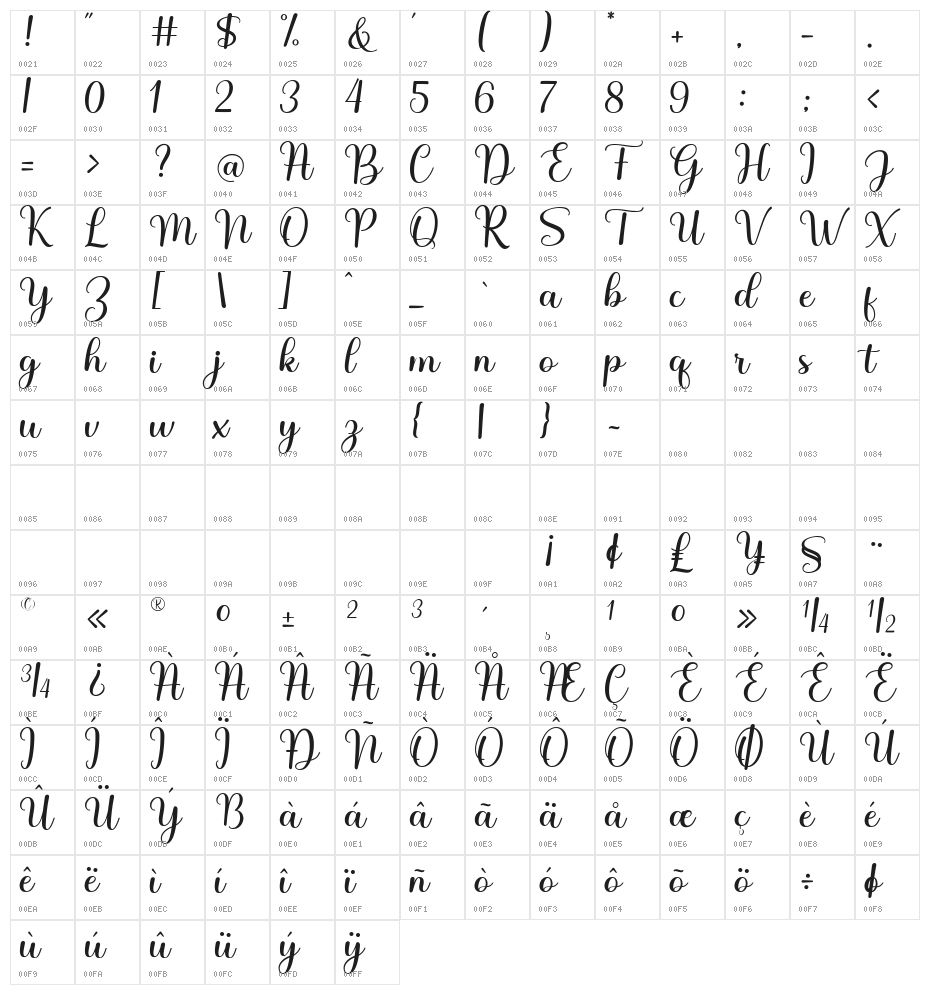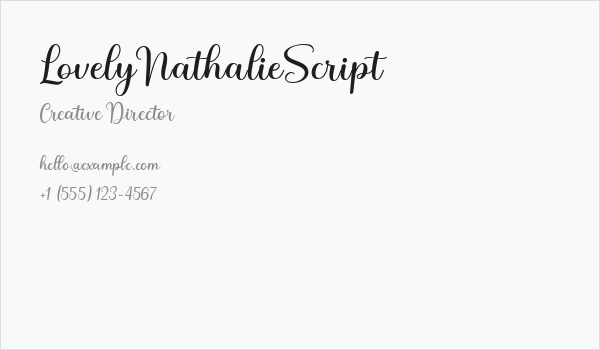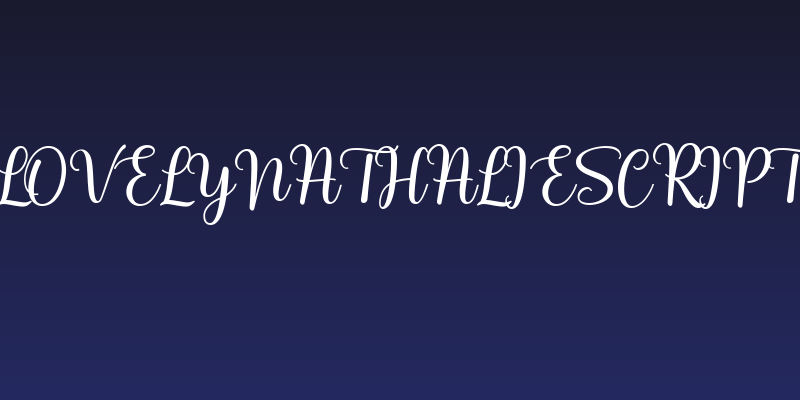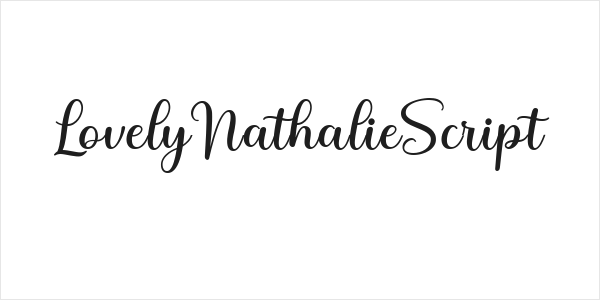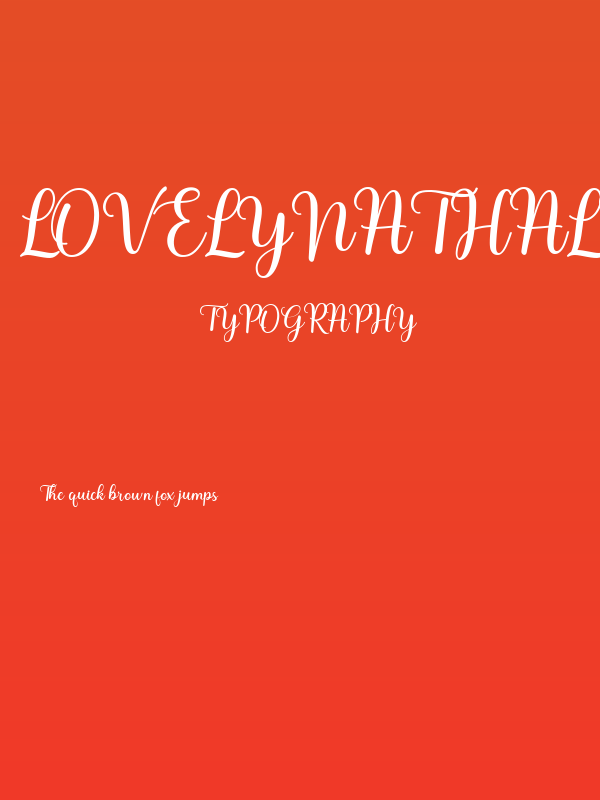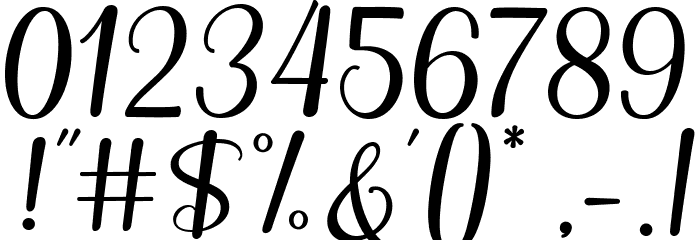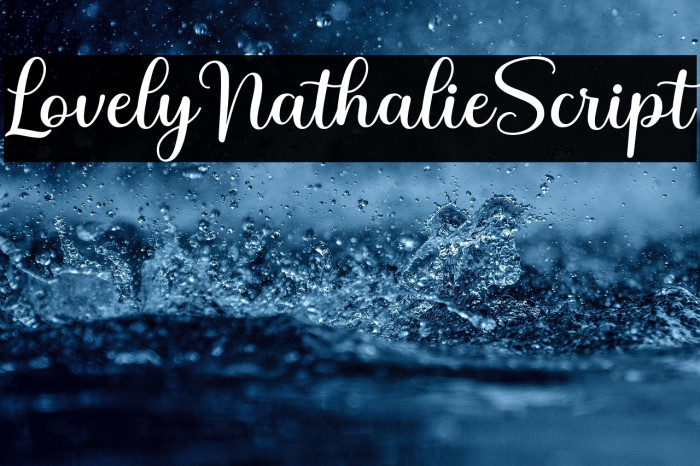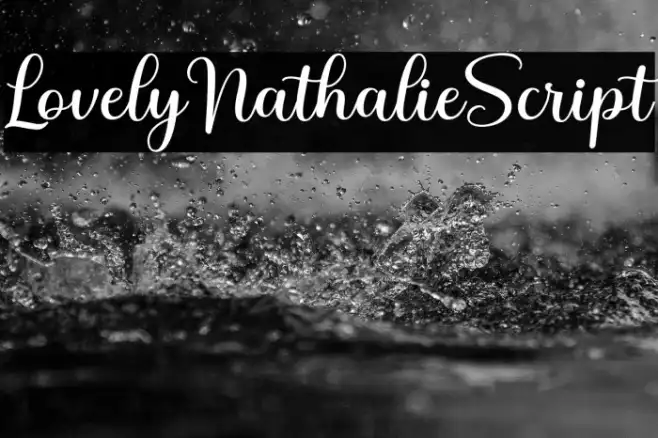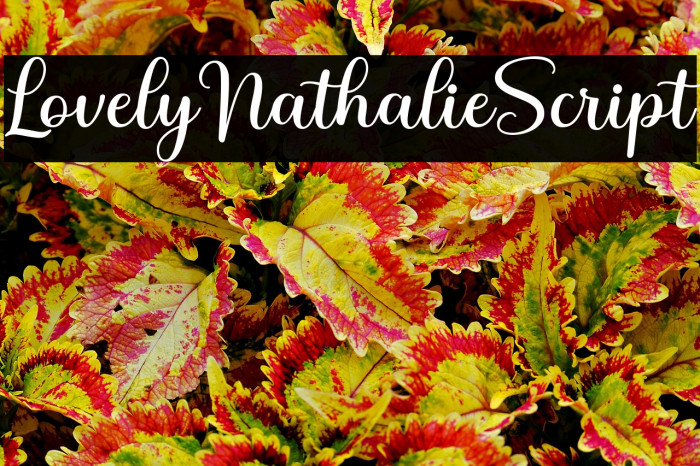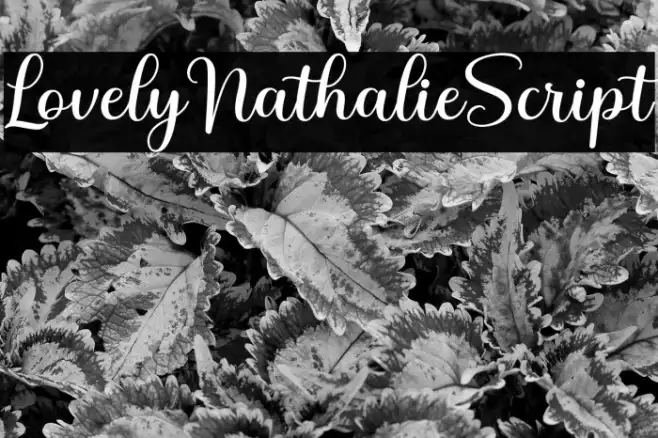
LovelyNathalieScript Font
LovelyNathalieScript Description
This elegant script font features a flowing, cursive style with smooth, rounded edges and graceful loops. The uppercase letters are ornate and slightly larger than the lowercase, which are more compact but equally stylish. The numerals maintain the script's fluidity, with a consistent stroke width that adds to the overall harmony of the design. Special characters are thoughtfully integrated, maintaining the font's cohesive aesthetic. This font exudes a sense of sophistication and charm, making it ideal for projects that require a personal, handwritten touch.